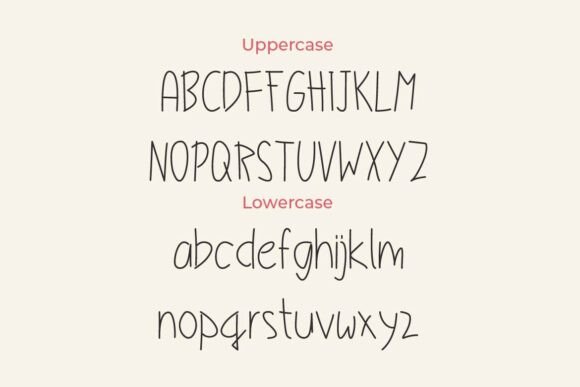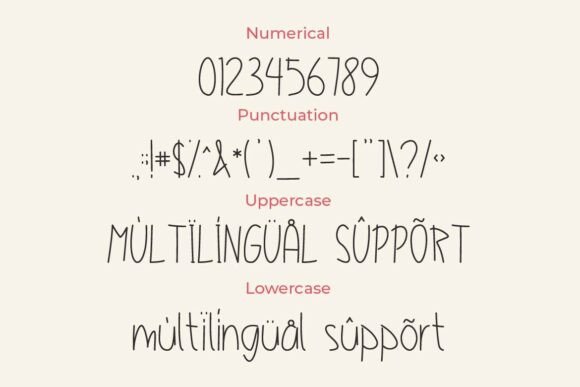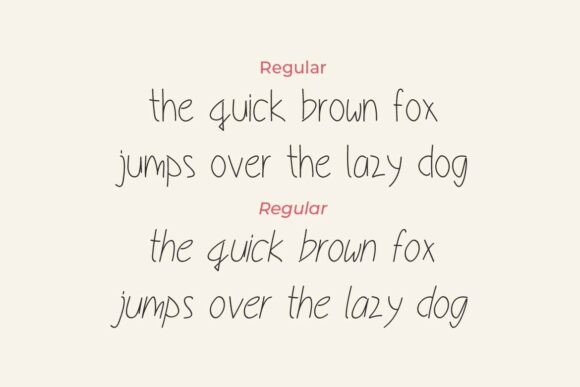
When Words Become Art
There’s something magical about the first sketch of a new project – the blank page, the twinkle in your eye, and the feeling that anything is possible. As designers, we know that this spark of creativity is what drives us to bring our ideas to life. And sometimes, it’s the perfect font that sets the tone for our entire design.
Enter the Anatomi Font, a beautiful handwritten font that captures the essence of authentic pen strokes with a modern twist. Its imperfect lines and subtle irregularities give it a human feel, making it perfect for branding, personal projects, journaling, and more. With Anatomi Font, you can add a touch of personality to your designs, making them truly one-of-a-kind.
For designers, the Anatomi Font is a valuable tool that can elevate your work and help you connect with your audience on a deeper level. Its unique character and natural rhythm make it an excellent choice for lifestyle content, quotes, and packaging that needs a real, emotional touch.
Anatomi Font Key Features
- Unique Characteristics: Anatomi Font features a unique blend of geometric and organic elements, creating a striking contrast between sharp lines and smooth curves.
- Kerning and Ligatures: The font includes advanced kerning and ligature pairs, ensuring precise spacing and a polished appearance in text settings.
- Customization Options: Anatomi Font allows for easy customization through the use of OpenType features, such as stylistic sets and swashes, to add a personal touch to designs.
Design Review: Anatomi Font
Overall, I think the Anatomi Font has some great qualities, but it also has some areas that could be improved. Let’s dive into the details.
- Unique design: Anatomi Font has a distinctive and modern look that can be a great fit for designs that want to stand out.
- Highly legible: The font is designed to be easy to read, even at smaller sizes, which is essential for digital use.
- Good for body text: Anatomi Font is suitable for body text, as it’s clear and concise, making it easy to read large blocks of text.
- May not be suitable for headlines: The font’s design may not be strong enough for headlines, as it can get lost in the noise.
- Limited font weight options: Anatomi Font only comes in a few weights, which may limit its use in certain design scenarios.
- May not work well in small sizes: While the font is highly legible, it may not be the best choice for very small sizes, as the details can get lost.
Overall, I think Anatomi Font is a solid choice for designs that want a modern, legible font. However, it may not be the best fit for every project, and designers should carefully consider the limitations before making a decision.
Anatomi Font is ideal for:
- Headings and titles due to its unique and stylish appearance.
- Branding and logos where a distinctive font is required.
- Designing flyers, brochures, and posters where a visually appealing font is needed.